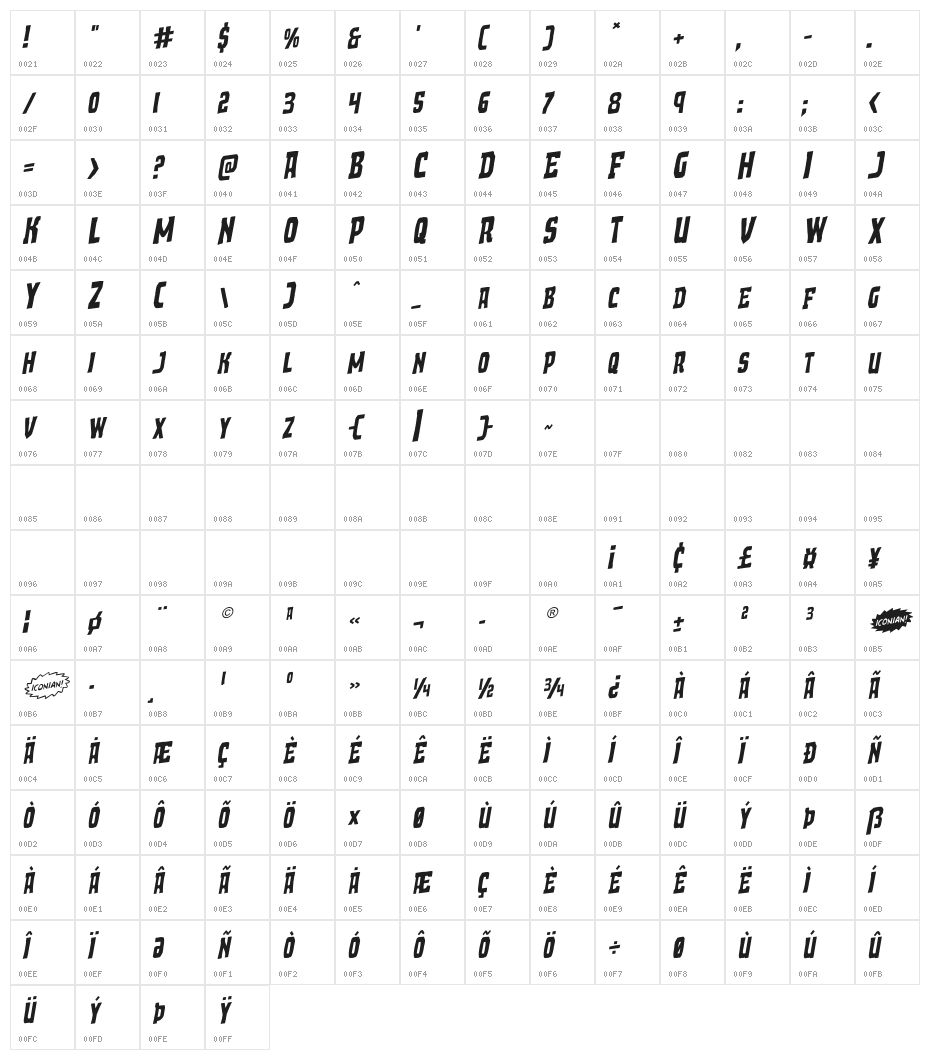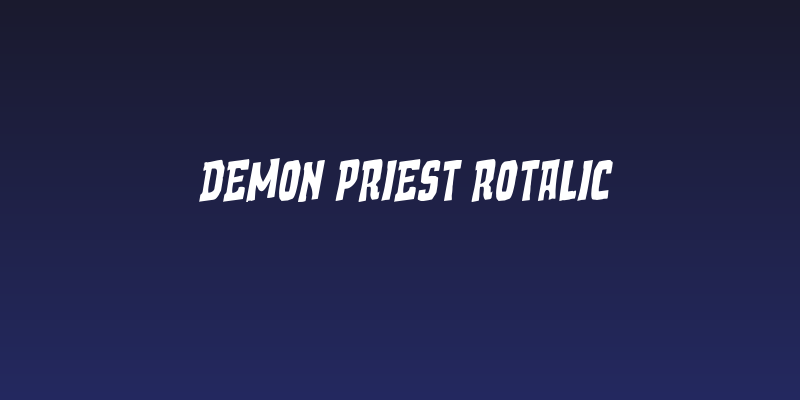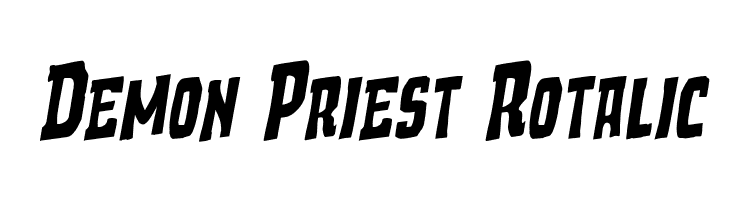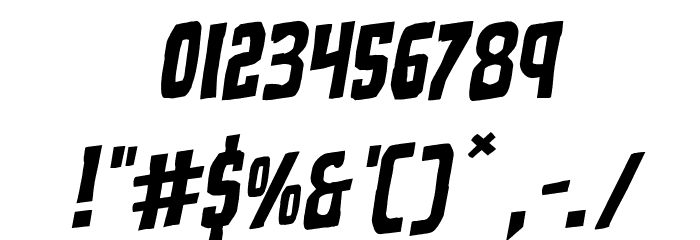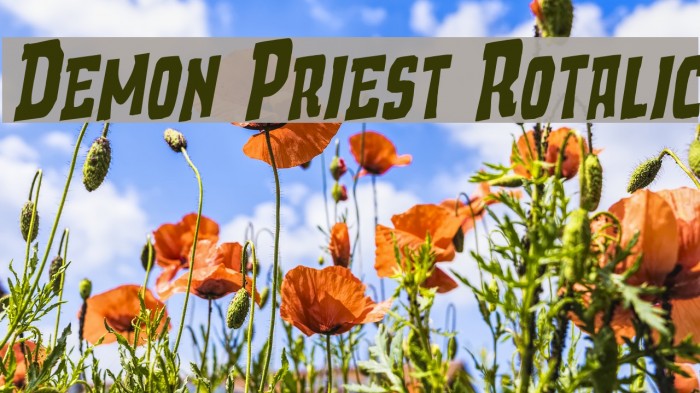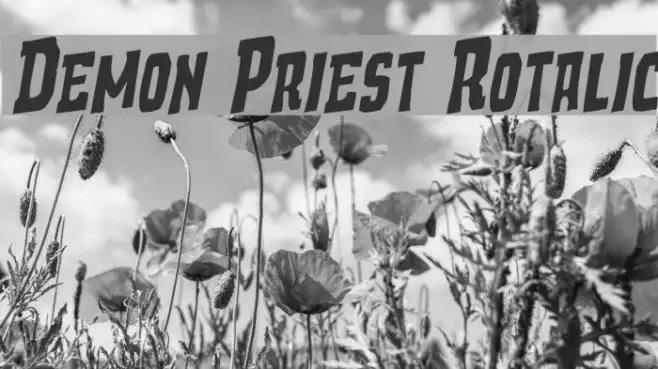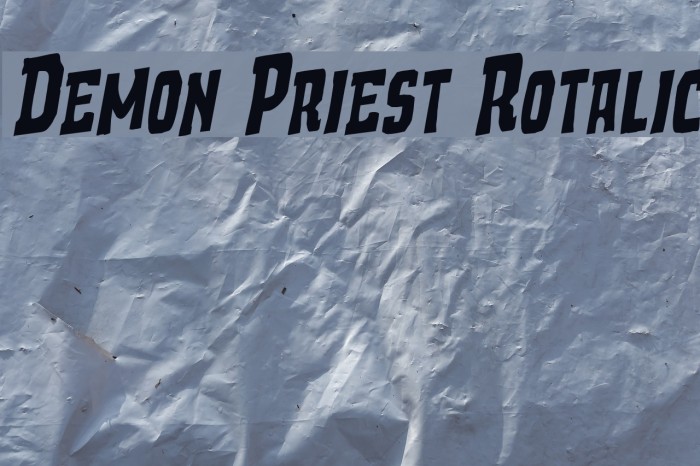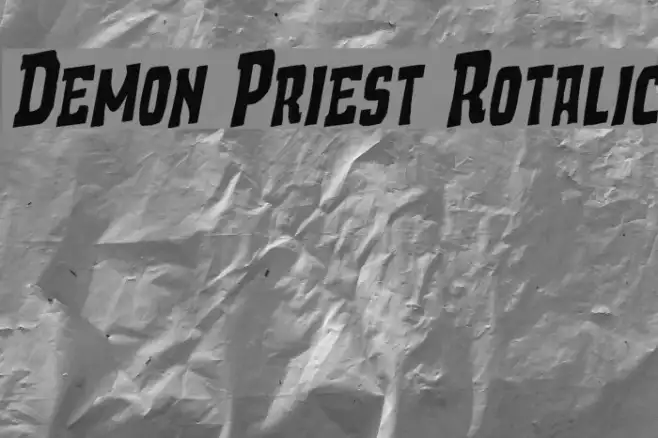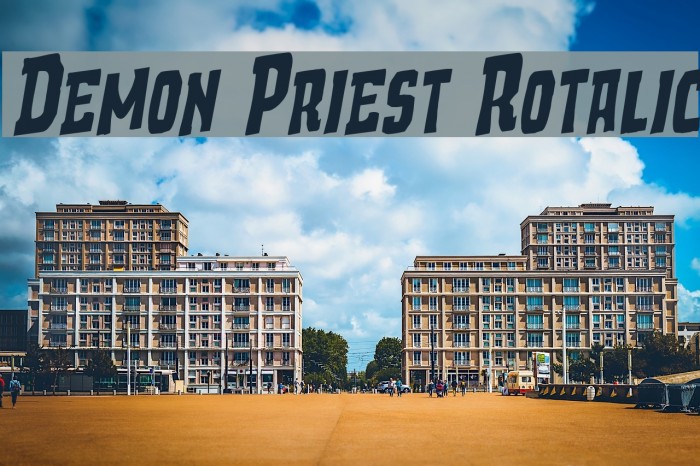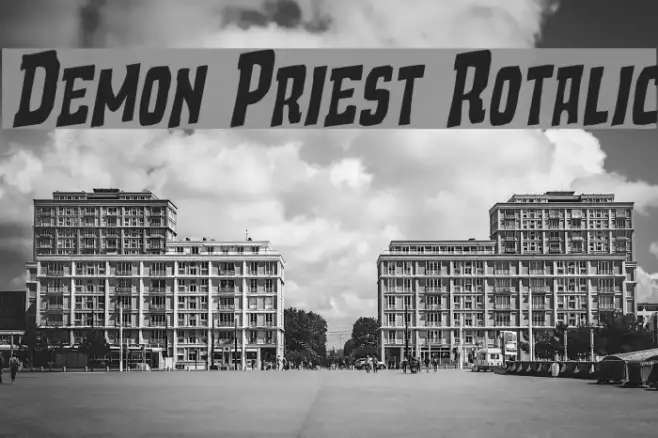
Demon Priest Rotalic Font
Demon Priest Rotalic Description
This font presents a bold and dynamic style with a strong slant, giving it an energetic and forward-moving appearance. The characters are thick and robust, with sharp angles and a slightly condensed form that enhances its impactful presence. The uppercase and lowercase letters maintain a consistent style, while the numerals and special characters complement the overall design. The font's boldness and slant make it ideal for attention-grabbing headlines and titles, where a sense of urgency or movement is desired. Its unique style can add a modern and edgy touch to various design projects.
| Overall Style | Modern, Edgy |
| Proposed Projects | Ideal for sports branding, action movie posters, dynamic advertisements, and edgy graphic designs. |